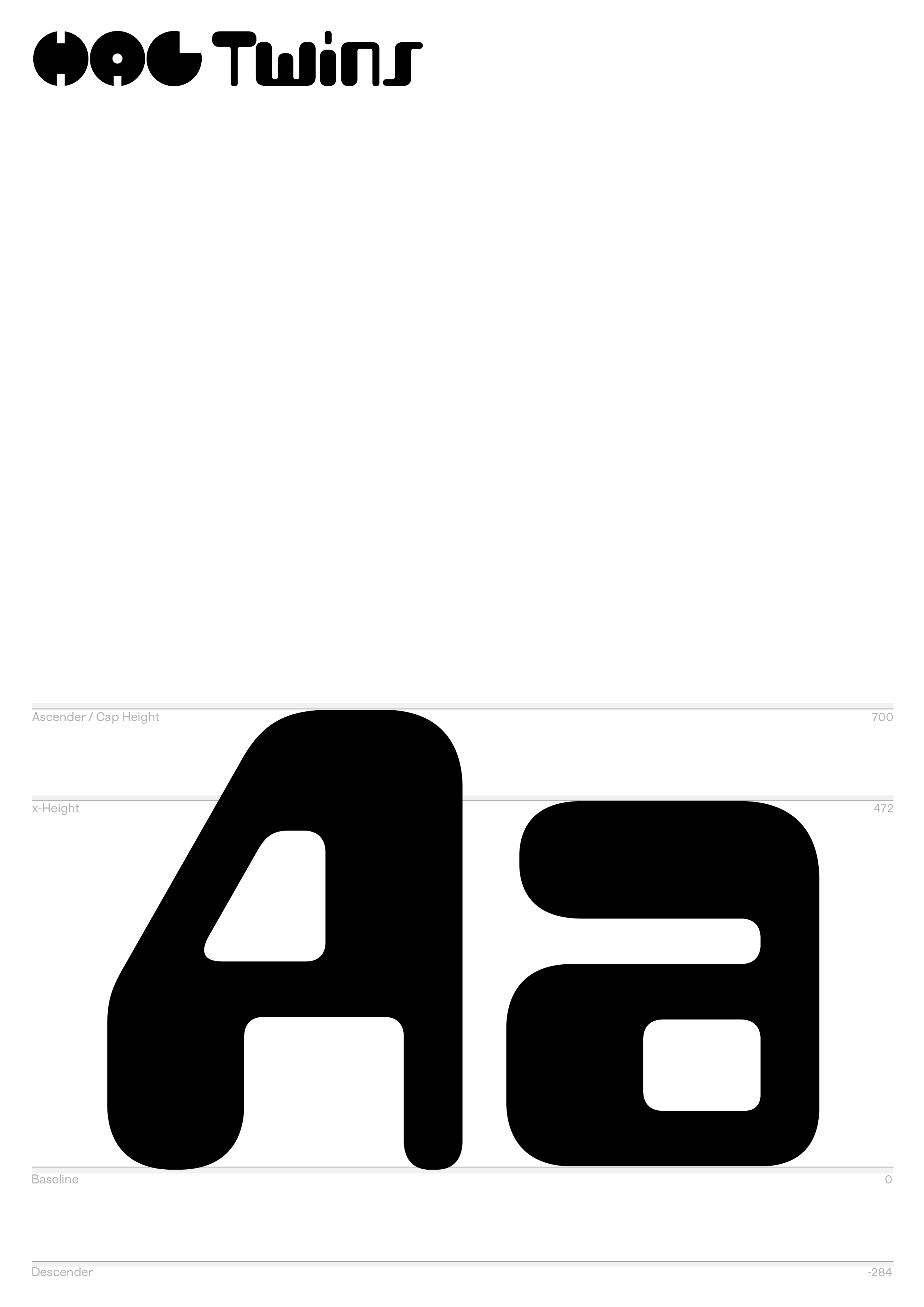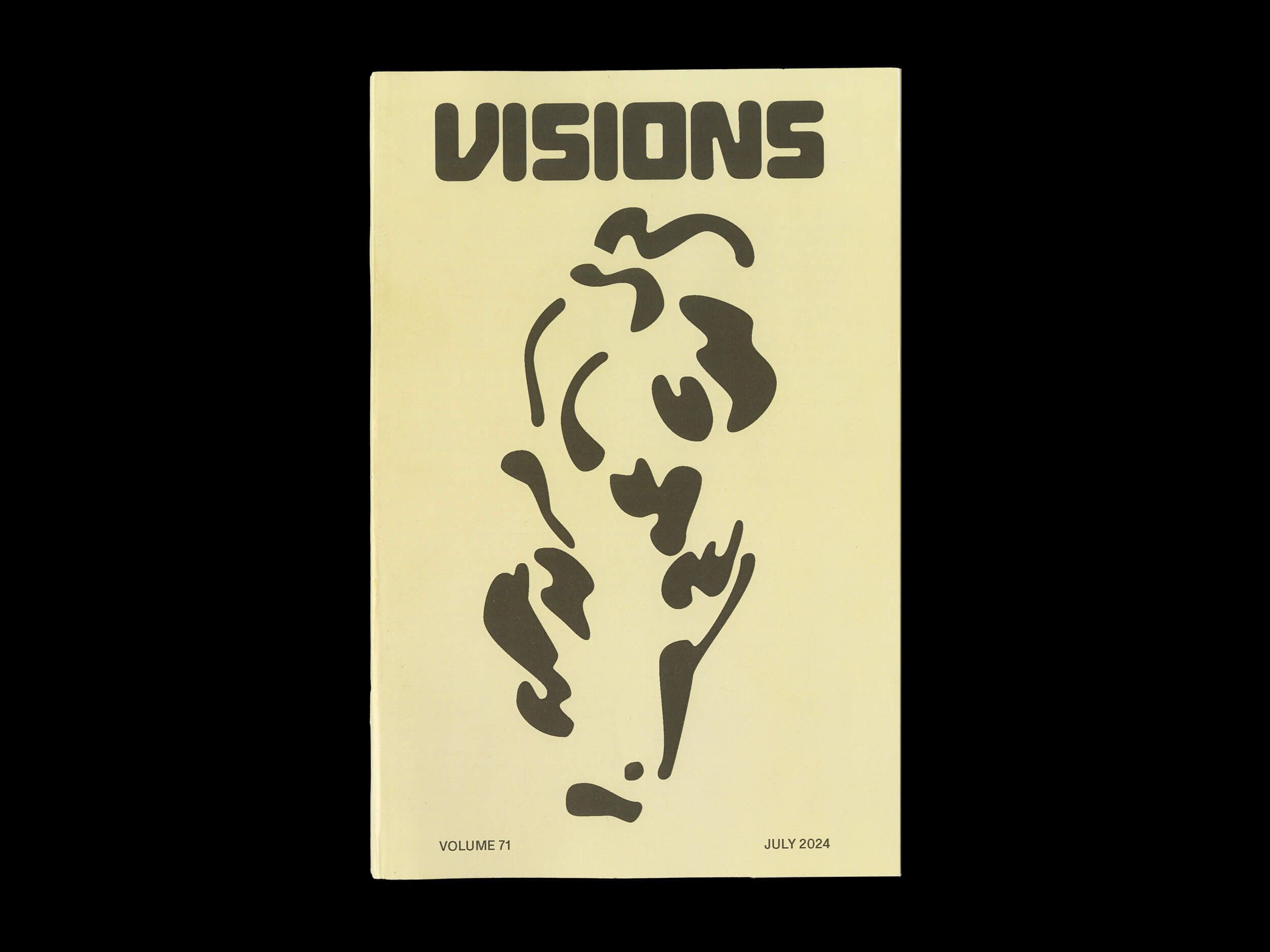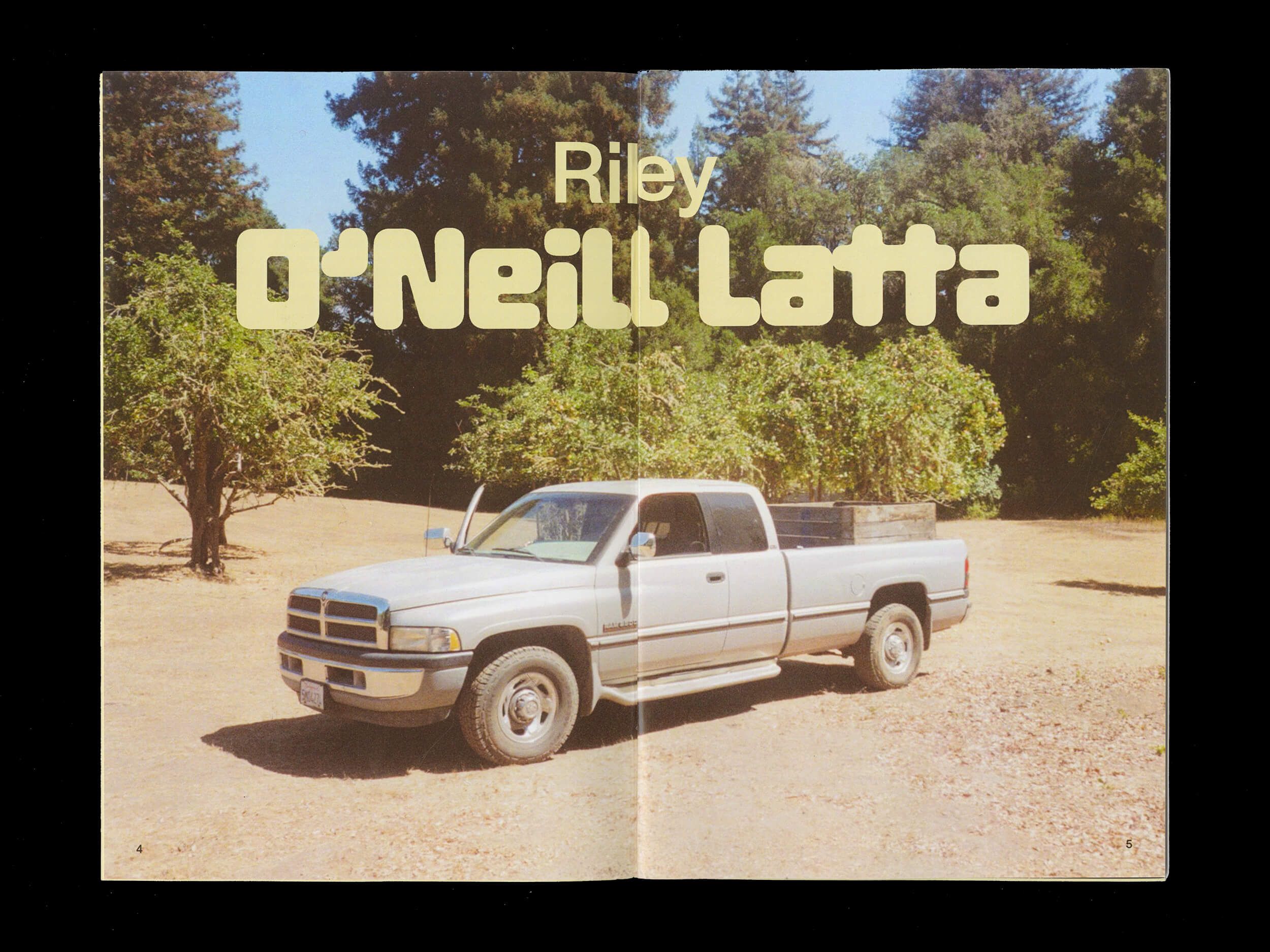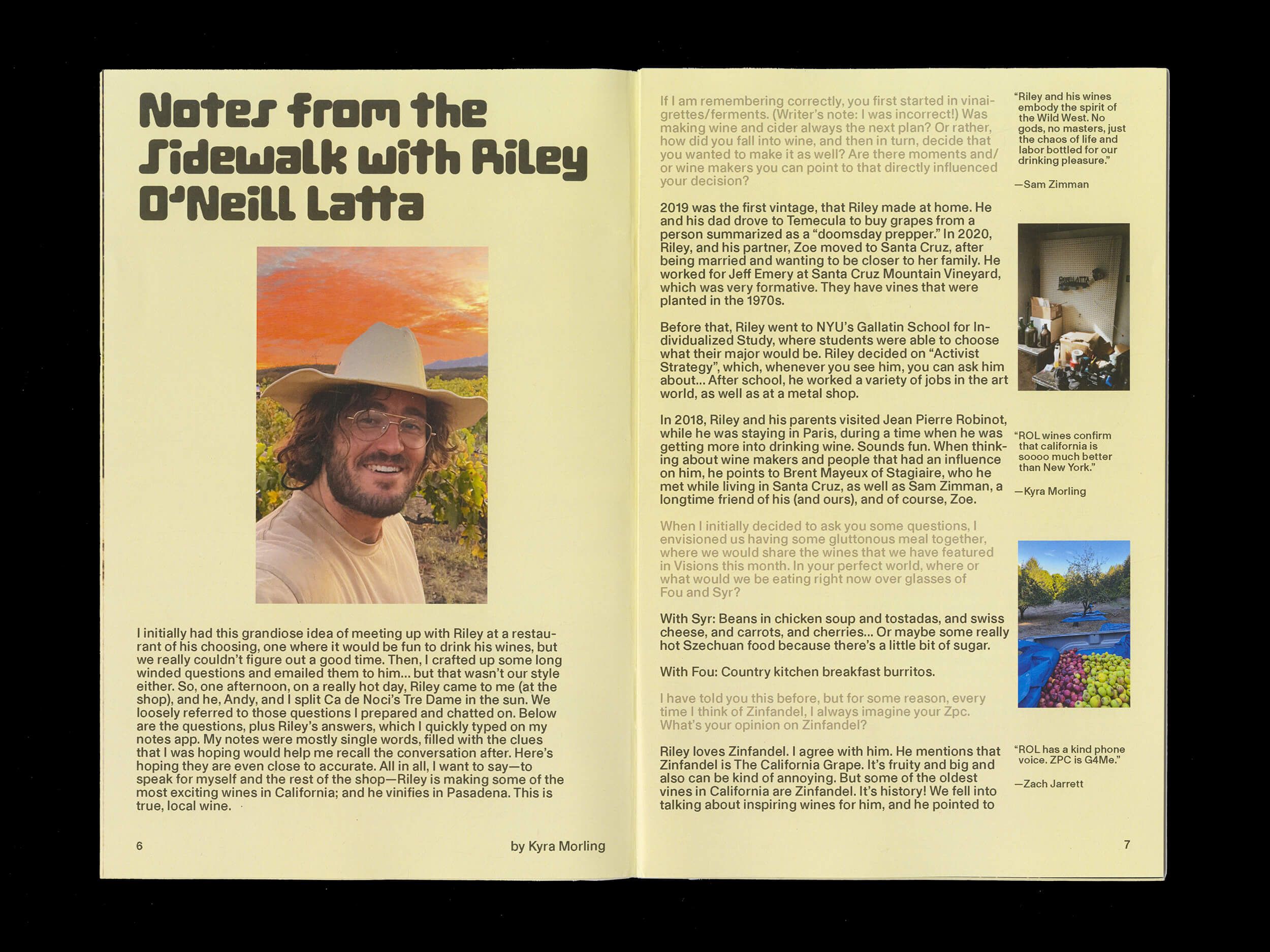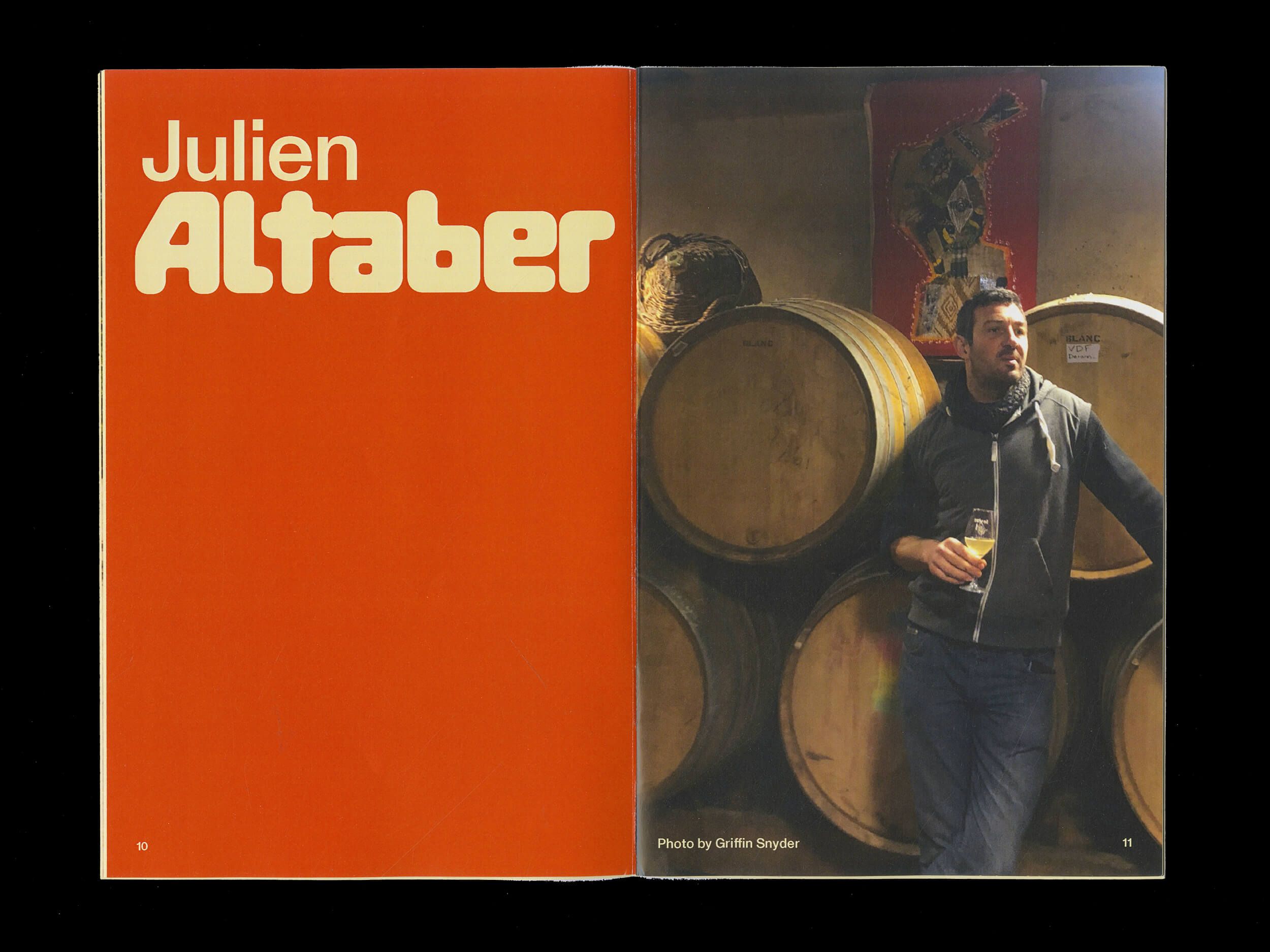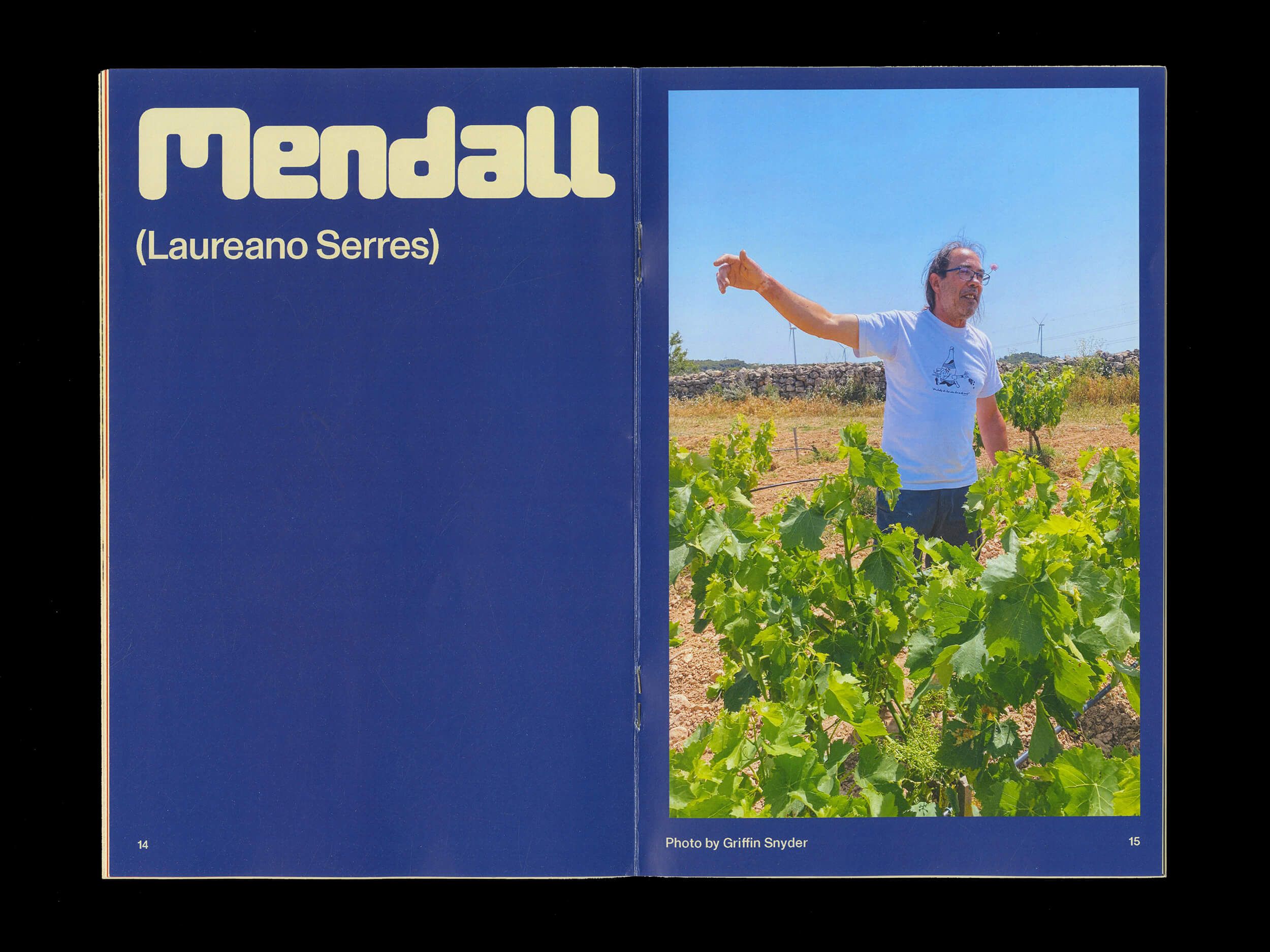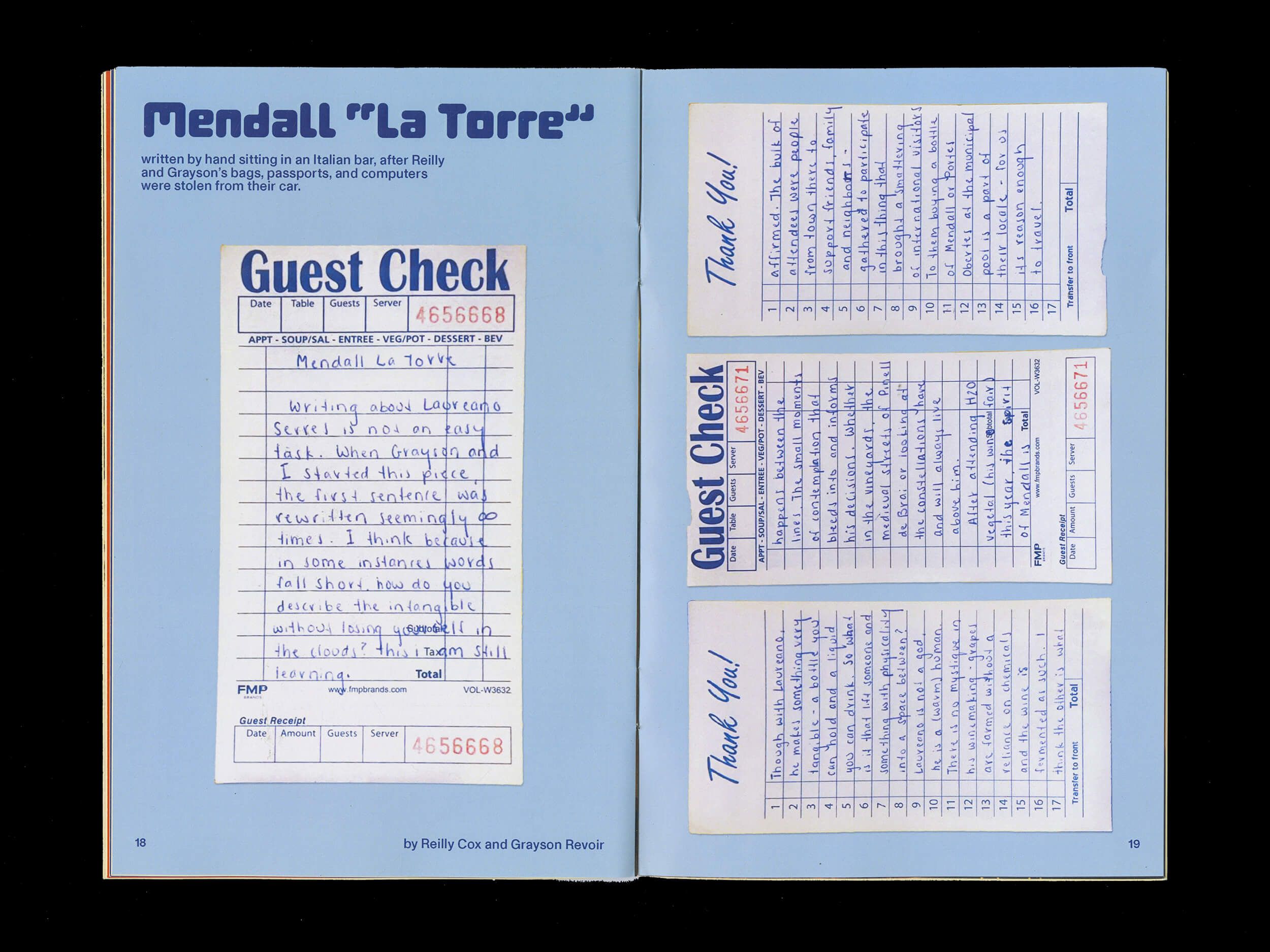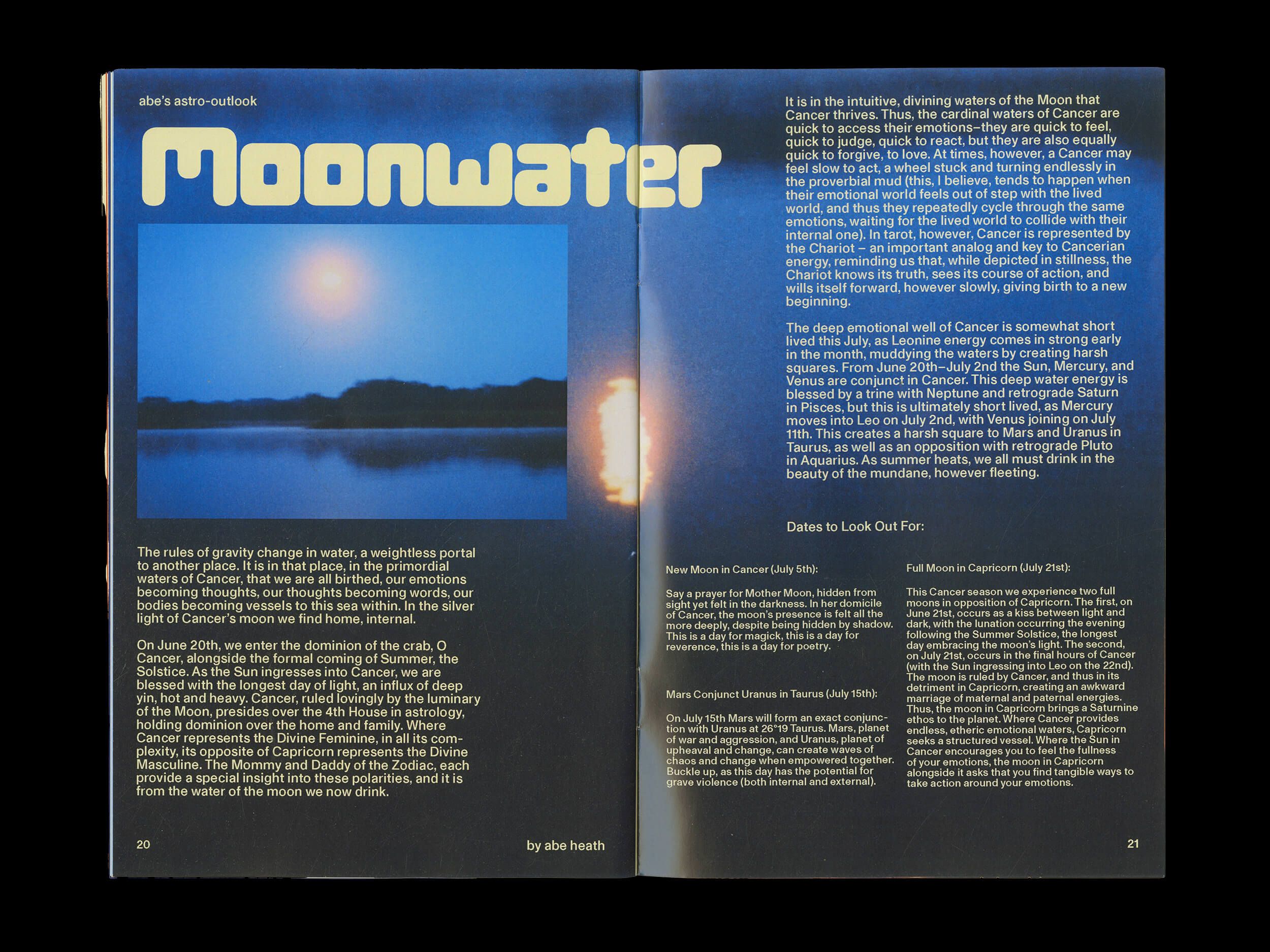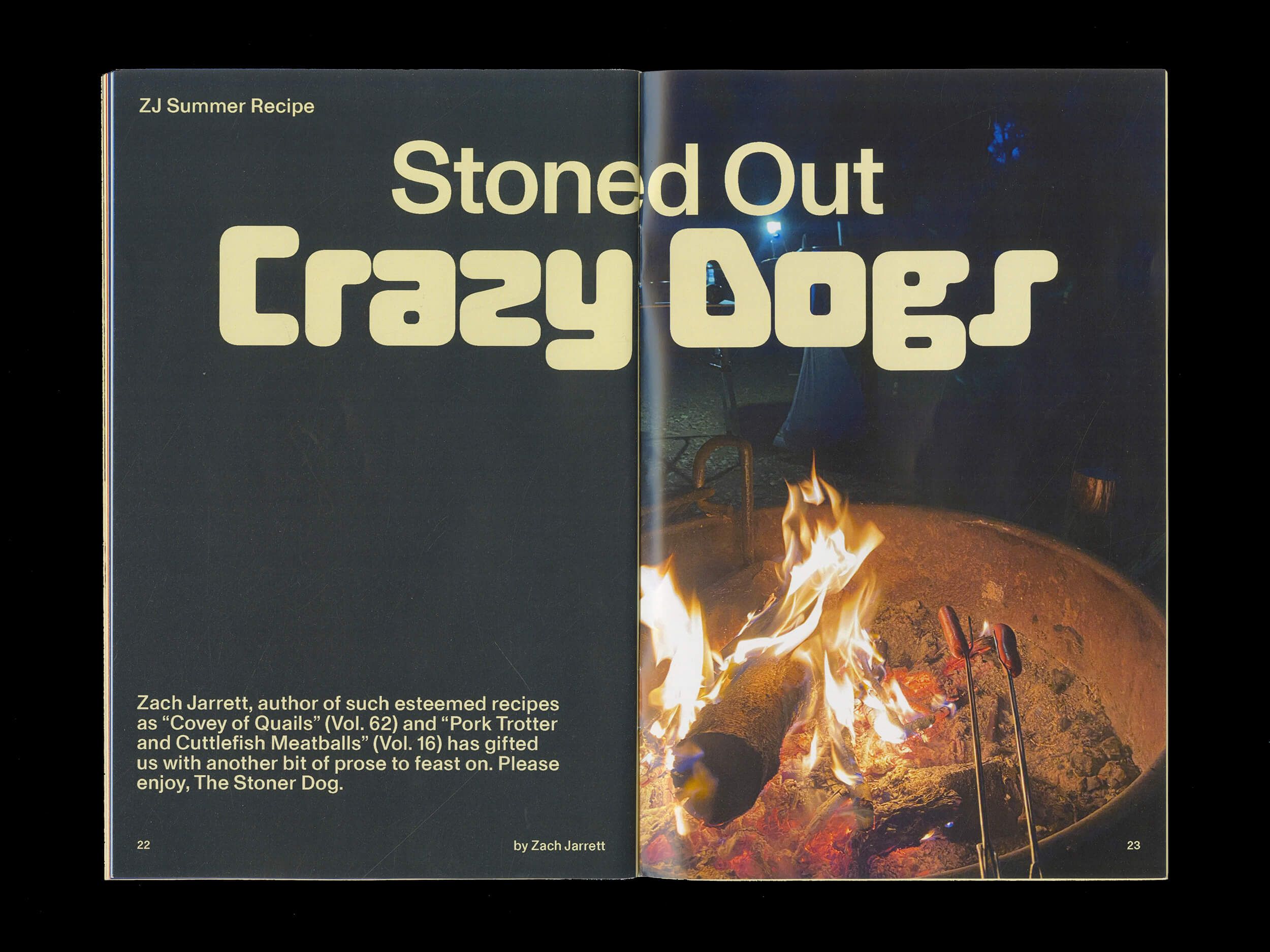
The ISO standard ISO 2033:1983, and the corresponding Japanese Industrial Standard JIS X 9010:1984 (originally JIS C 6229–1984), define character encodings for OCR-A, OCR-B and E-13B. There are two major MICR fonts in use: E-13B and CMC-7. There is no particular international agreement on which countries use which font. In practice, this does not create particular problems as cheques and other vouchers do not usually flow out of a particular jurisdiction. The E-13B font has been adopted as an international standard in ISO 1004-1:2013, and is the standard in Australia, Canada, the United Kingdom, the United States, as well as Central America and much of Asia, besides other countries. The CMC-7 font has been adopted as an international standard in ISO 1004-2:2013, and is widely used in Europe, including France and Italy, Mexico, and South America, including Argentina, Brazil, Chile, besides other countries. Israel is the only country that can use both fonts simultaneously, though the practice makes the system significantly less efficient. This situation is the product of the Israelis adopting CMC-7, while the Palestinians opted for E-13B.
MICR characters are printed on documents in one of the two MICR fonts, using magnetizable (commonly known as magnetic) ink or toner, usually containing iron oxide. In scanning, the document is passed through a MICR reader, which performs two functions: magnetization of the ink, and detection of the characters. The characters are read by a MICR reader head, a device similar to the playback head of a tape recorder. As each character passes over the head, it produces a unique waveform that can be easily identified by the system. MICR readers are the primary tool for cheque sorting and are used across the cheque distribution network at multiple stages. For example, a merchant will use a MICR reader to sort cheques by bank and send the sorted cheques to a clearing house for redistribution to those banks. Upon receipt, the banks perform another MICR sort to determine which customer's account is charged and to which branch the cheque should be sent on its way back to the customer. However, many banks no longer offer this last step of returning the cheque to the customer. Instead, cheques are scanned and stored digitally. Sorting of cheques is done as per the geographical coverage of banks in a nation.
Before the mid-1940s, cheques were processed manually using the Sort-A-Matic or Top Tab Key method. The processing and cheque clearing was very time-consuming and was a significant cost in cheque clearance and bank operations. As the number of cheques increased, ways were sought for automating the process. Standards were developed to ensure uniformity in financial institutions. By the mid-1950s, the Stanford Research Institute and General Electric Computer Laboratory had developed the first automated system to process cheques using MICR. The same team also developed the E-13B MICR font. “E” refers to the font being the fifth considered, and "B" to the fact that it was the second version. The “13” refers to the 0.013-inch character grid. The trial of MICR E-13B font was shown to the American Bankers Association (ABA) in July 1956, which adopted it in 1958 as the MICR standard for negotiable documents in the United States. ABA adopted MICR as its standard because machines could read MICR accurately, and MICR could be printed using existing technology. In addition, MICR remained machine readable, even through overstamping, marking, mutilation and more. The first cheques using MICR were printed by the end of 1959. Although compliance with MICR standards was voluntary in the United States, it had been almost universally adopted in the United States by 1963. In 1963, ANSI adopted the ABA's E-13B font as the American standard for MICR printing, and E-13B was also standardized as ISO 1004:1995.
In the 1960s, MICR fonts became a Symbol of Modernity and Futurism
One of the biggest problems found in the second phase was how to input the check information, especially the account numbers, with any sort of speed. Beise demanded a system that would not require the information to be changed from one medium to another, from check to punched card for instance, while simultaneously lowering error rates. SRI investigated several solutions to the problem, including the first OCR system from a company in Arlington, Virginia. However, they found that it was all too easy for banks, and customers, to write over the account numbers and spoil the system. They also experimented with barcode information, and while this worked well even when printed over, if there was enough "damage" to the code a human operator could not read them in order to input them manually. Instead, they decided to combine the two technologies, and used MICR-printed account numbers which could be read by a magnetic reader similar to those in a cassette tape recorder. The resulting reader was a mechanical tour-de-force, combining five MICR readers with a large rotating drum that forced checks dumped in the top to come out the bottom single-file. The system was eventually able to read ten checks a second, with errors on the order of 1 per 100,000 checks.
HAL Twins continues spiritually and methodically where Gemini left off. The 1960’s design by Franco Grignani was one of the first typefaces to adopt the characteristic style of machine-readable magnetic ink numerals to letterforms, applying stark contrast between horizontal and vertical stem weights. Expanding on this idiosyncratic concept, Twins variably shifts between its binary states: light (00), semi-light (01), semi-bold (10) and bold (11). The basic, rounded shapes playfully convey a sense of fundamental simplicity and industrial quirkiness.